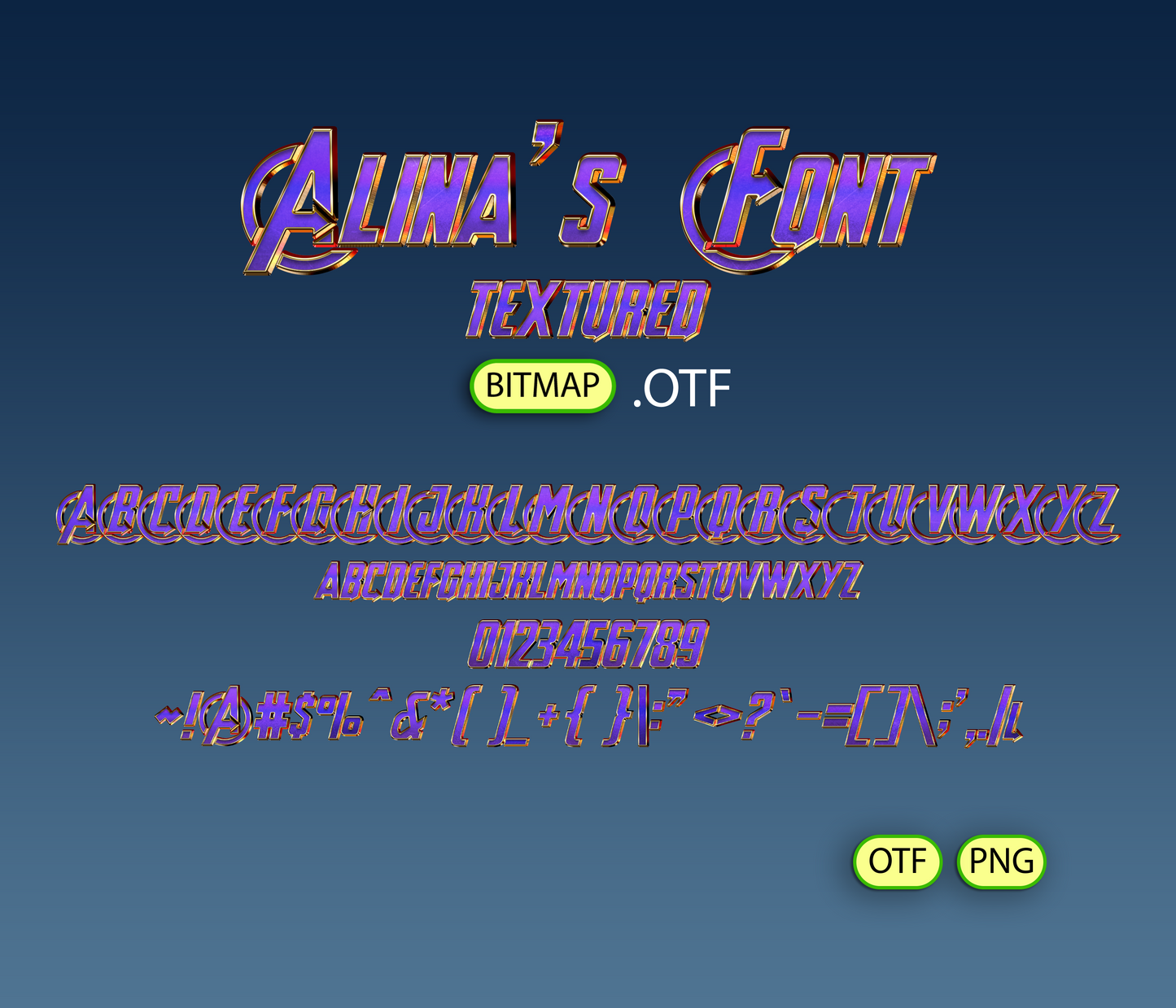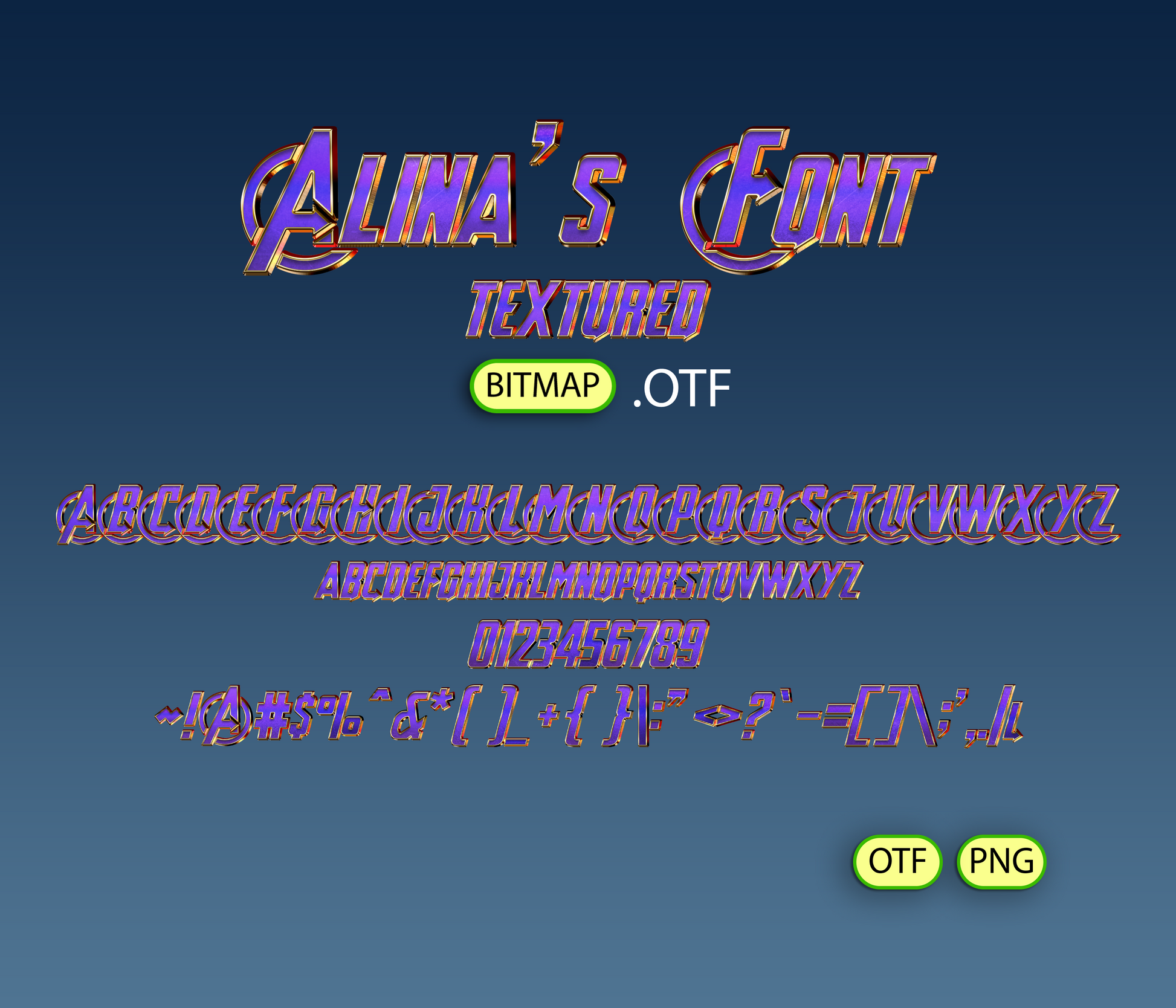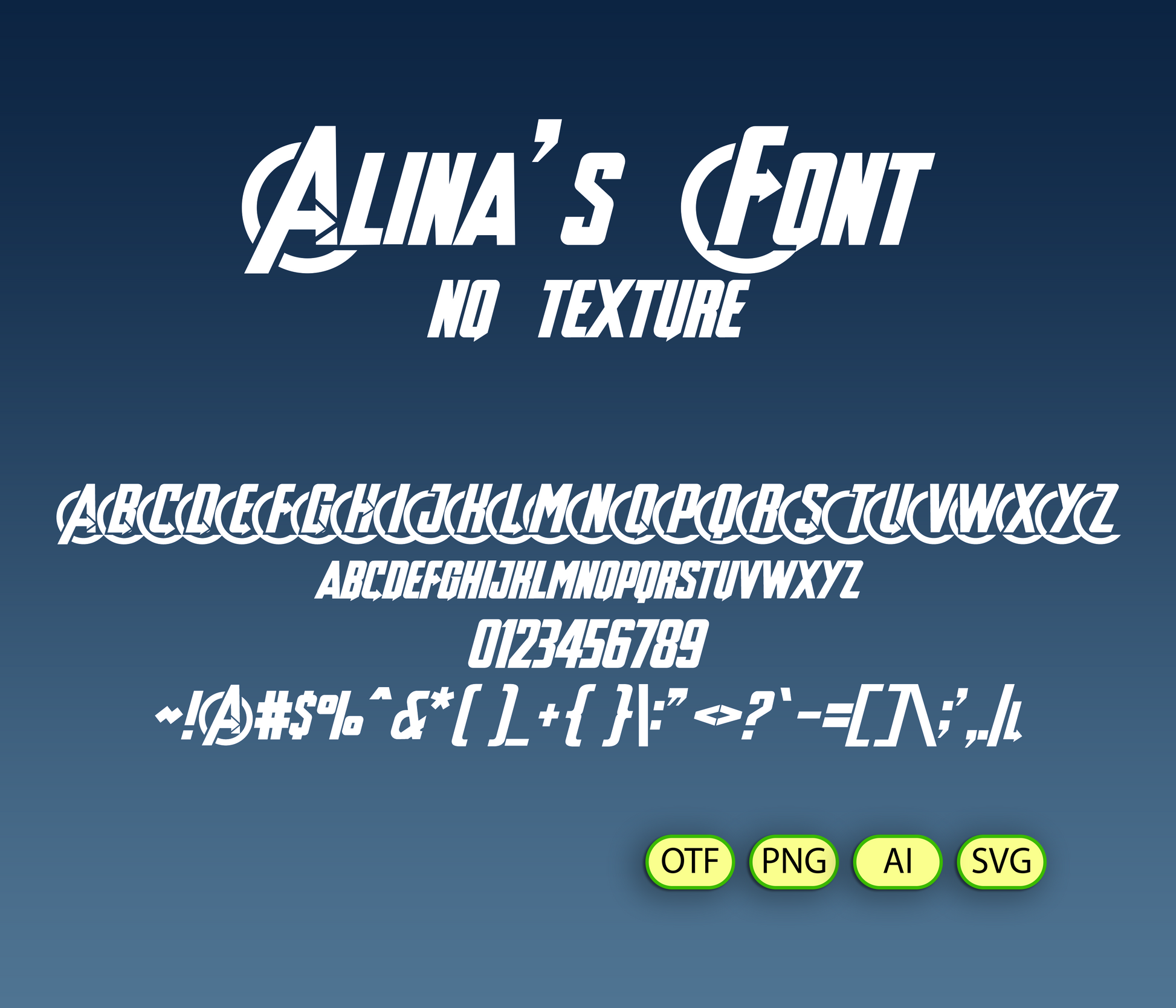
Ultimate Showdown Font Textured
Ultimate Showdown Textured Bitmap Font for Fans of Epic Battles
Hey there, superhero fans and crafters! Get your hands on Alina's HeroCraft, our textured bitmap font that's all about those legendary champions we can't get enough of. Want to make your crafts stand out? This font is perfect for you.